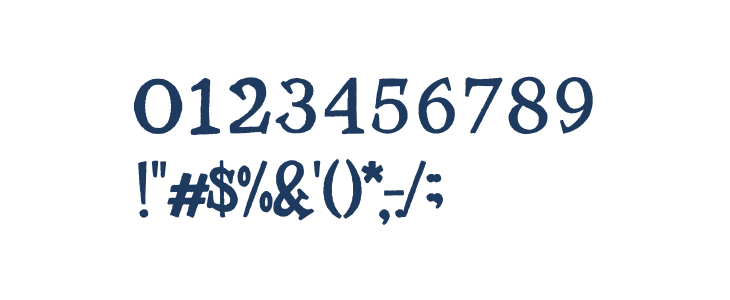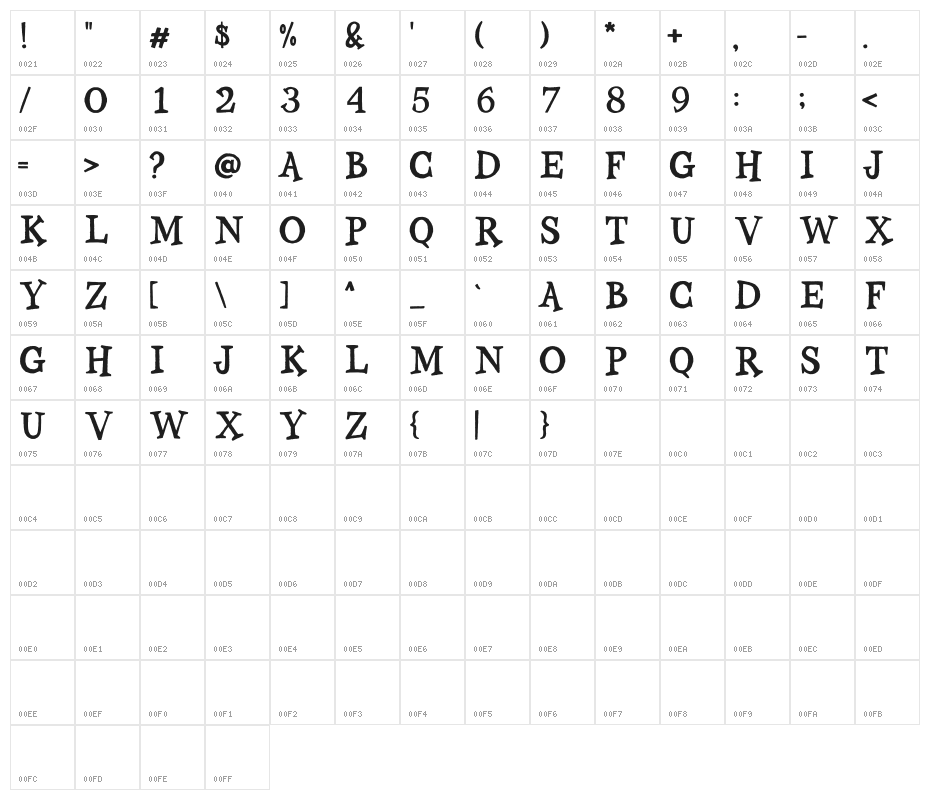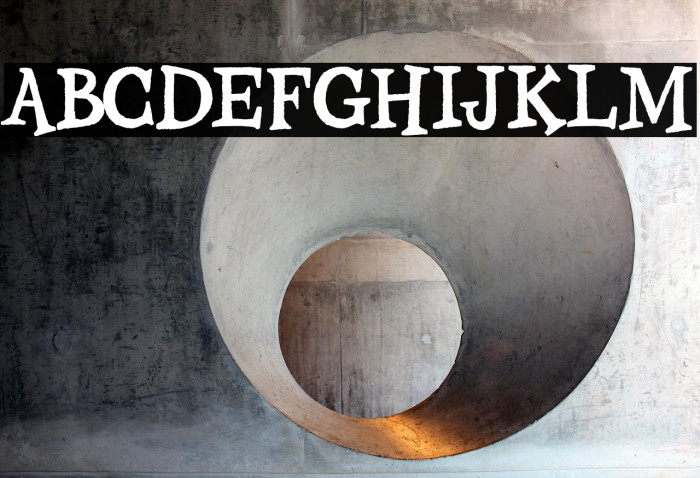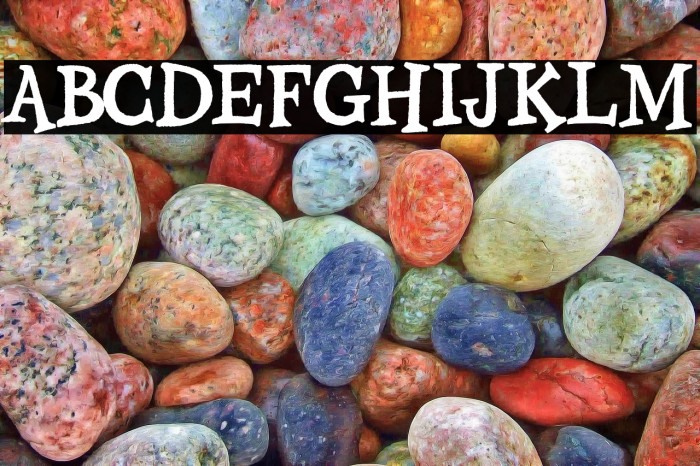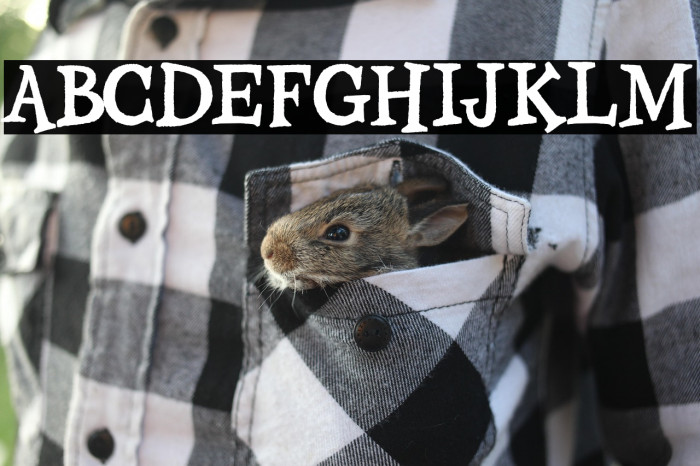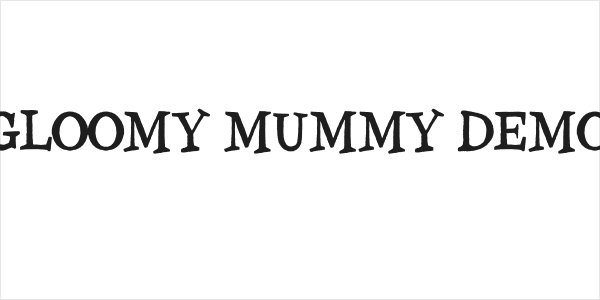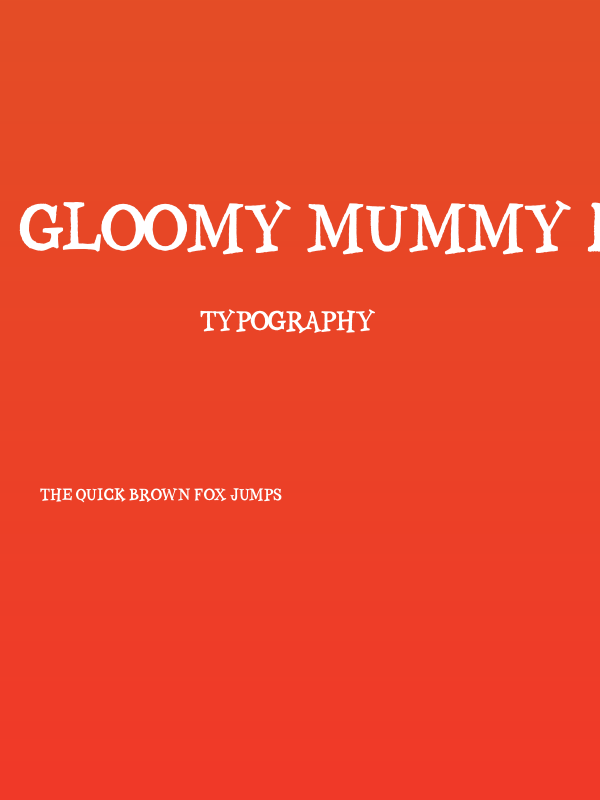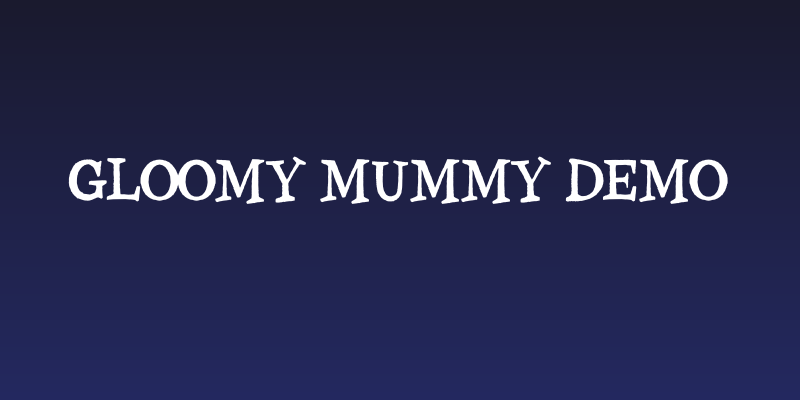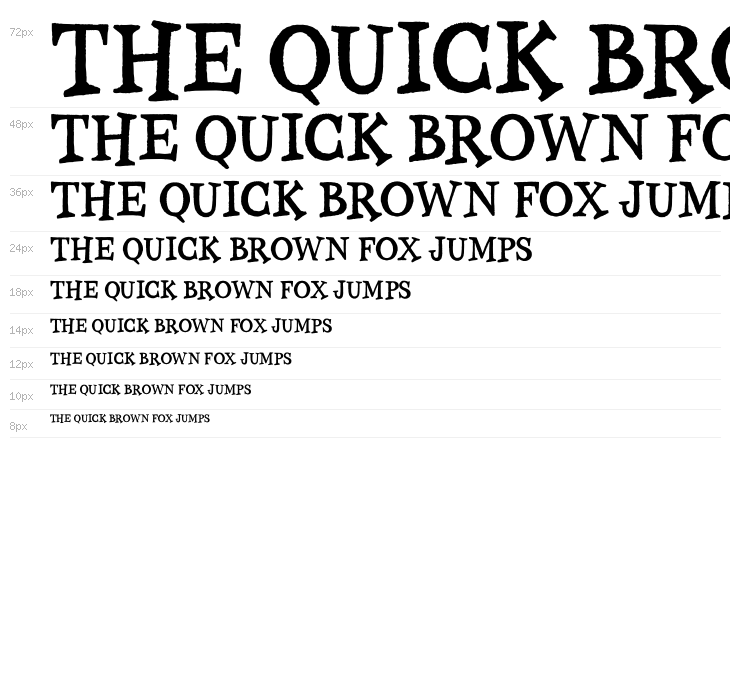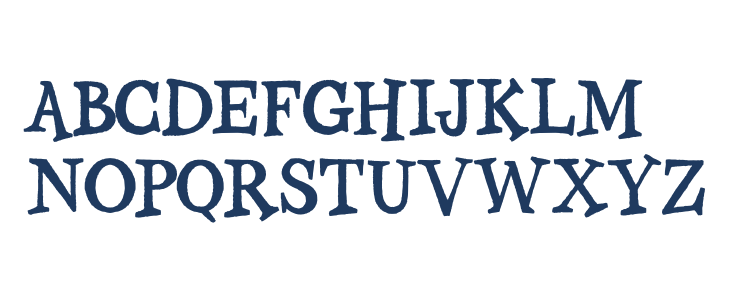
Gloomy Mummy Demo Font
Gloomy Mummy Demo Description
This font features a distinctive, playful style with uneven, wavy lines that give it a hand-drawn appearance. The characters are bold and slightly irregular, adding a whimsical and quirky touch. The uppercase letters are prominent, with exaggerated serifs and varying stroke widths that create a dynamic look. The numbers and special characters maintain the same playful aesthetic, making them suitable for creative and informal designs. The overall style is reminiscent of a spooky or Halloween theme, perfect for projects that require a fun and eerie vibe.
| Proposed Projects | Ideal for Halloween-themed designs, children's book covers, party invitations, and creative posters. |